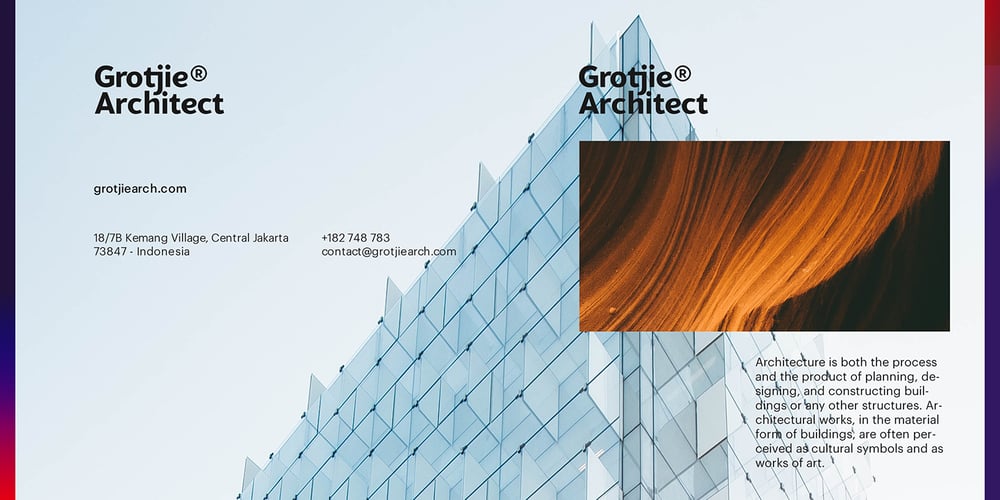
US Bill Sans Font Family was designed by Firman Suci Ananda, Fajar Wahyu Pribadi, Irfan Ulya and published by Unidaas. US Bill Sans contains 12 styles and family package options. US Bill™ Sans A Humanist typefaces sans serif. US Bill Sans has 12 weights, ranging from Light to Extrabold (including italics) and is ideally suited for advertising and packaging, book text, logo, branding and creative industries, small text, wayfinding and signage as well as web and screen design. Provides with features such as ligatures, small capitals, alternate characters, fractions, and super—and subscript characters. It comes with a complete range of figure set options as well as Latin-based languages. Designed and produced by Firman Suci Ananda, Fajar Wahyu Pribadi & Irfan Ulya. Published under Unidaas® Std — Formatika Aksa IDN, 2018.